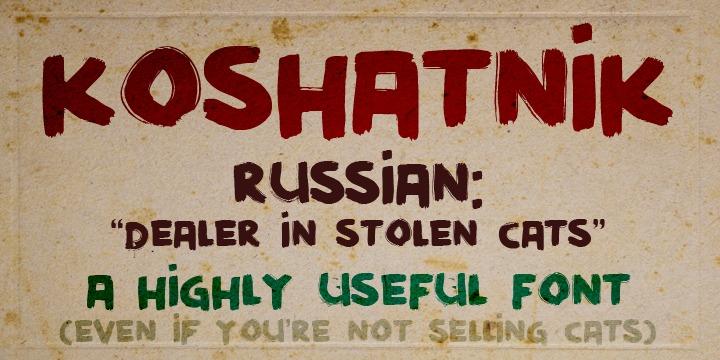
Koshatnik is a Russian word, meaning: “dealer in stolen cats”. I wonder why the English language does not have a word for a stolen kitty-dealer…
Anyway, Koshatnik is fat, it is big, it is handmade using brushes and India Ink. It is highly useful, highly legible and comes with a full litter of diacritics. Use it to find your cat, or sell one. Just don't steal them.
Koshatnik
Koshatnik Italic
Koshatnik Condensed
Koshatnik Condensed Italic